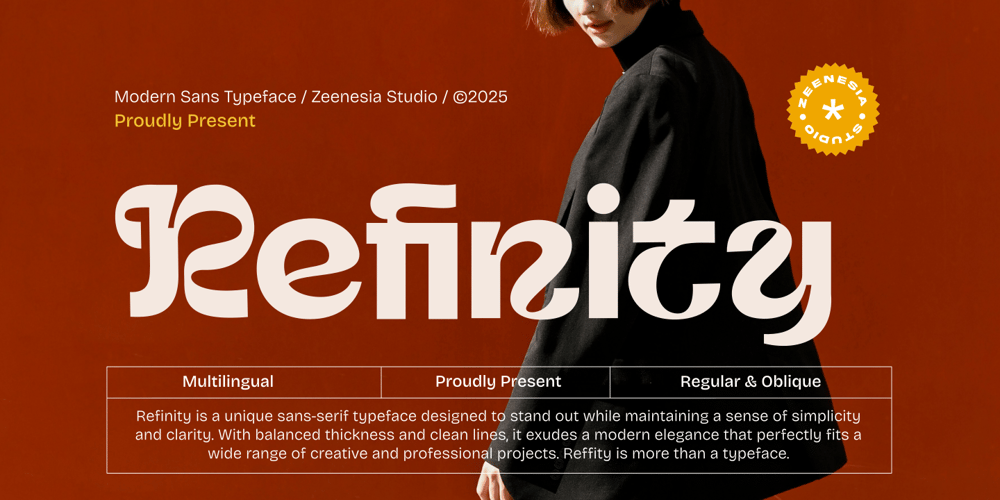
Refinity
Refinity font
Refinity Font Family was designed by Doni Purwoko and published by Zeenesia Studio. Refinity contains 2 styles and family package options. Refinity – A Modern Sans-Serif MasterpieceRefinity is a sleek and contemporary sans-serif font that embodies elegance and clarity. Designed with precision and attention to detail, this font is perfect for modern branding, editorial design, and user interfaces. Its clean lines and balanced proportions make it both versatile and timeless, suitable for any creative project.We hope you enjoy the font, please feel free to comment if you have any thoughts or feedback.Thanks for purchasing and glad to help you!